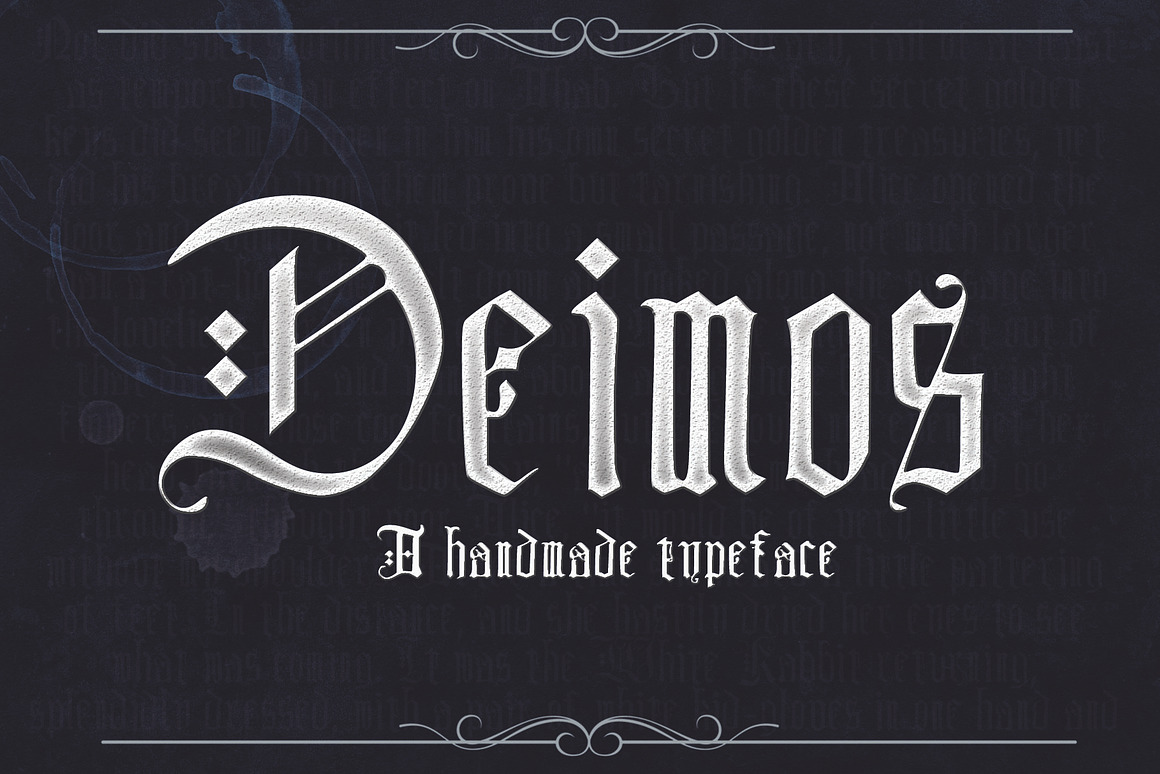
DEIMOS, a Blackletter Typeface
DEIMOS, a Blackletter Typeface is perfect for gothic branding projects, medieval-inspired logo design, historical editorial layouts, fantasy book covers, metal band merchandise, tattoo parlor signage, beer brewery branding, certificate design, and dramatic poster campaigns. This commanding typeface works exceptionally well in both digital applications and print media where authority and historical gravitas are paramount.
What makes DEIMOS, a Blackletter Typeface so exciting is its masterful interpretation of traditional Gothic lettering combined with contemporary design precision that creates an incredibly powerful visual impact. The font features bold, angular letterforms with distinctive thick and thin strokes, elaborate flourishes, and medieval-inspired character details that command attention and respect. Its dramatic presence and historical authenticity make it ideal for brands seeking to convey strength, tradition, heritage, and uncompromising quality in their visual communications.
The DEIMOS, a Blackletter Typeface family includes various stylistic weights from regular to ultra-bold, along with ornamental capitals and decorative elements. Each style maintains the typeface's gothic character while offering comprehensive character sets including multilingual support, traditional numerals, period punctuation, and special medieval-inspired symbols that enhance authentic historical communications.
This remarkable typeface represents the perfect fusion of medieval craftsmanship and modern typographic excellence. Whether you're developing luxury brand identities, creating atmospheric gaming interfaces, or designing ceremonial documents, DEIMOS, a Blackletter Typeface Free Download delivers the commanding presence and versatility needed to make bold statements. The font's gothic heritage makes it particularly effective for craft breweries, metal music brands, luxury watchmakers, and establishments celebrating traditional craftsmanship.
The meticulously crafted letterforms and balanced proportions in DEIMOS, a Blackletter Typeface ensure optimal readability while maintaining its dramatic medieval character. Its striking appearance makes it perfect for headlines, titles, and ceremonial applications where its full gothic majesty can create unforgettable impressions and establish immediate visual authority with discerning audiences.